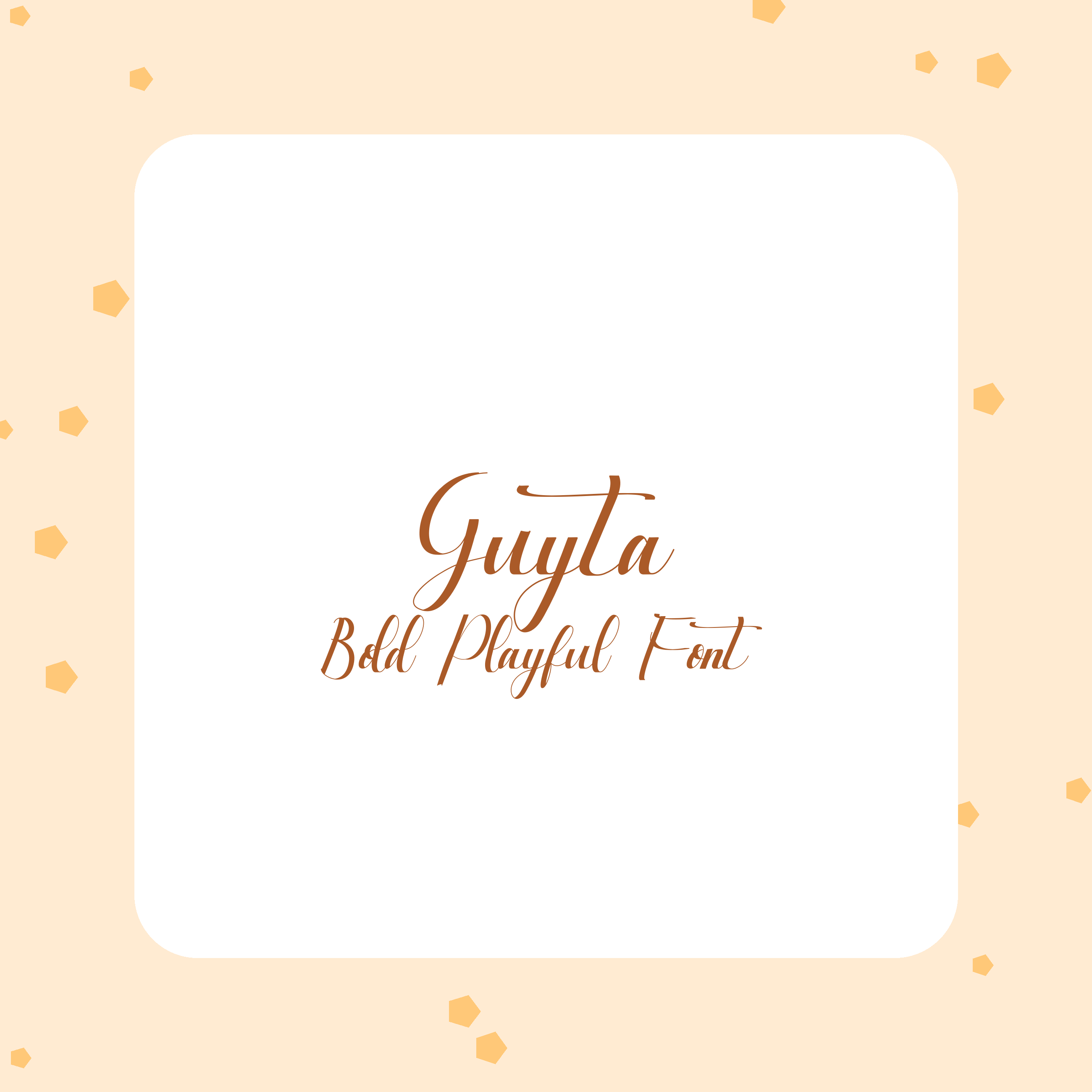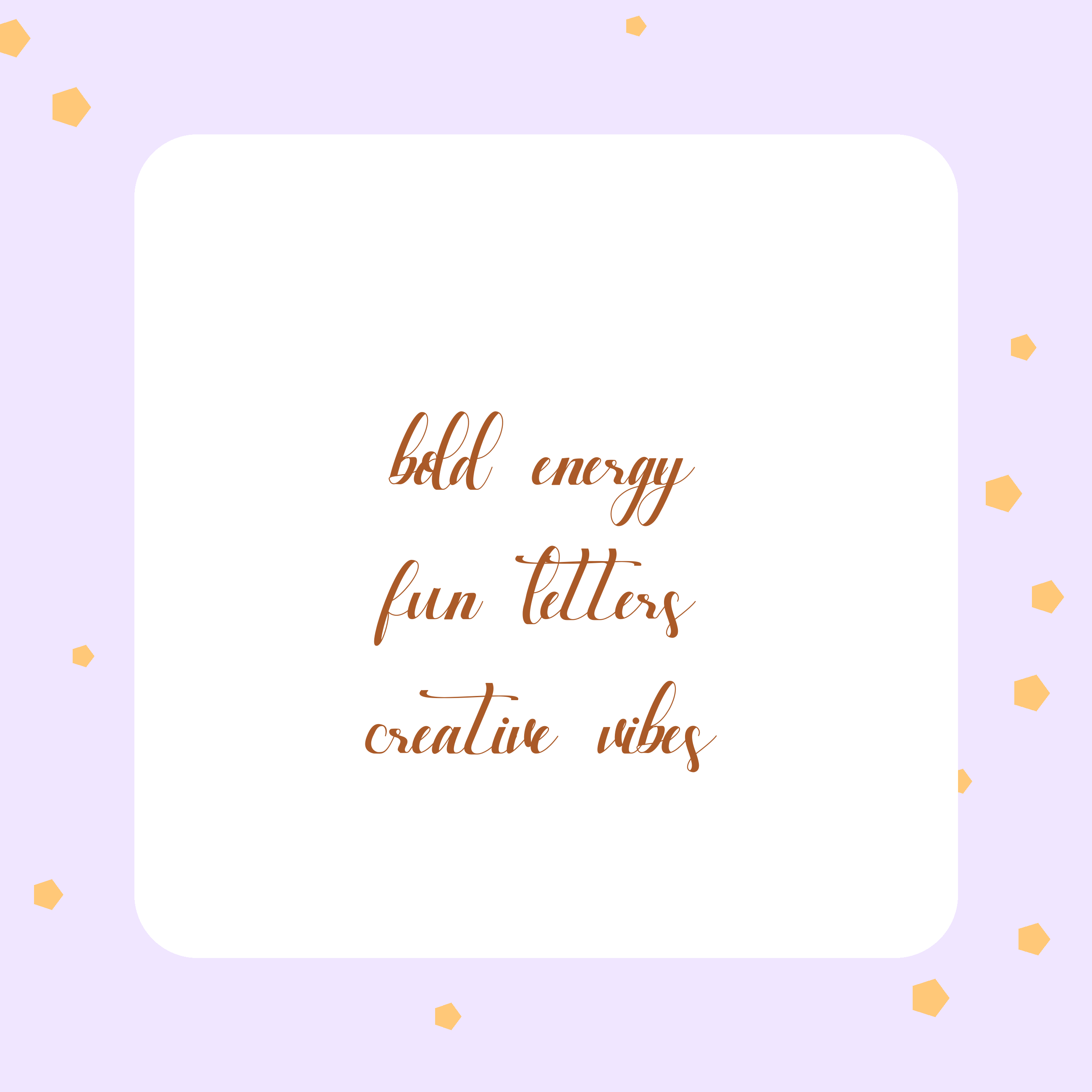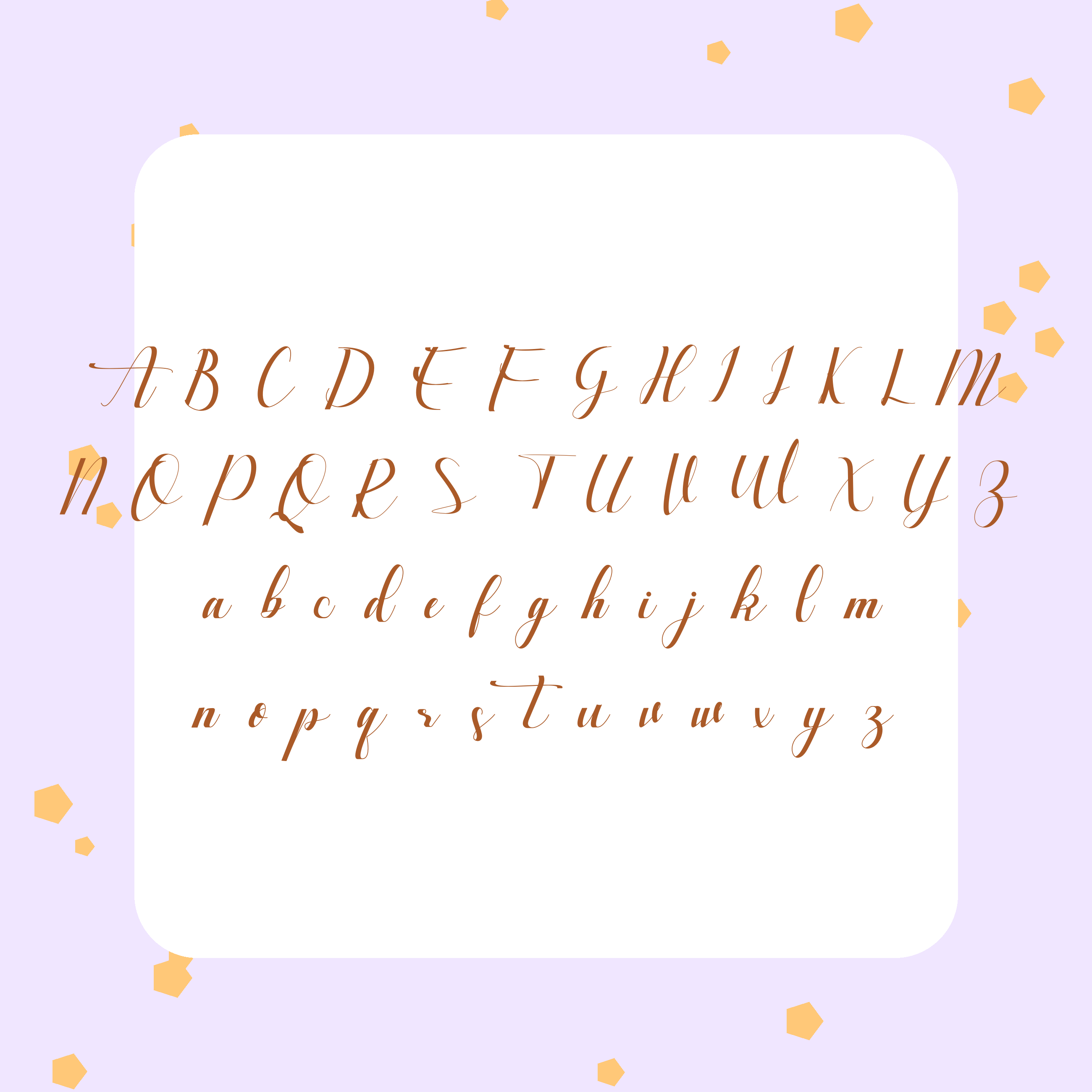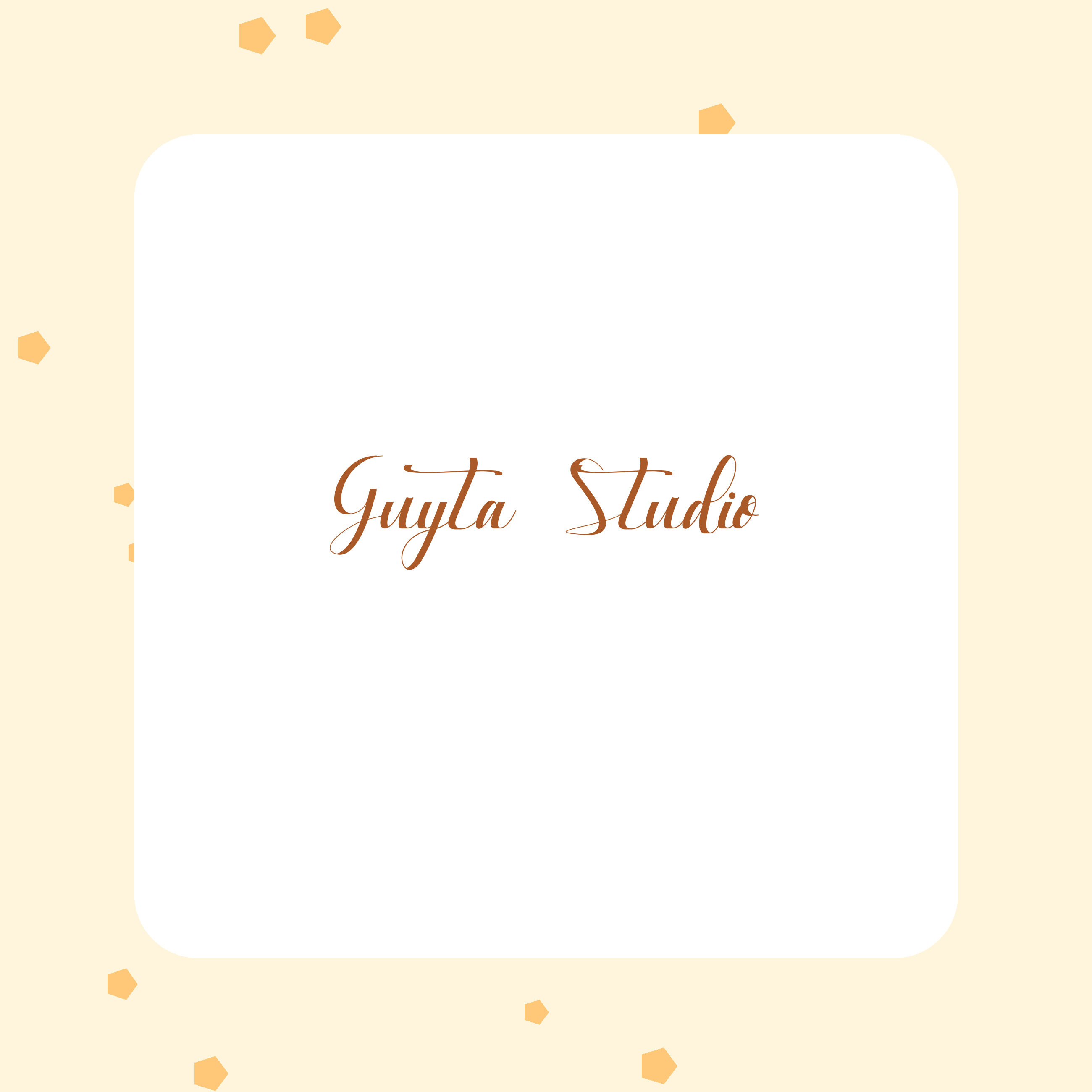
Guyta Bold Playful Font | Fun Cricut Font | Creative Handwritten Display Font
Description
Guyta is a bold, playful handwritten display font designed to bring fun, creativity, and personality to your projects. With chunky strokes and extra-large lettering, this font is perfect for Cricut crafts, stickers, kids designs, and energetic branding.
🎨 Bold, fun lettering
🎨 Extra-large and easy to read
🎨 Perfect for playful & creative projects